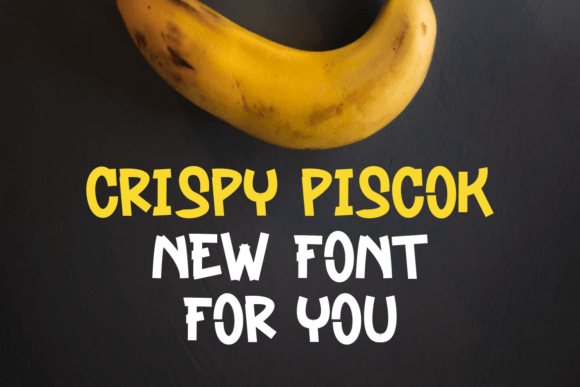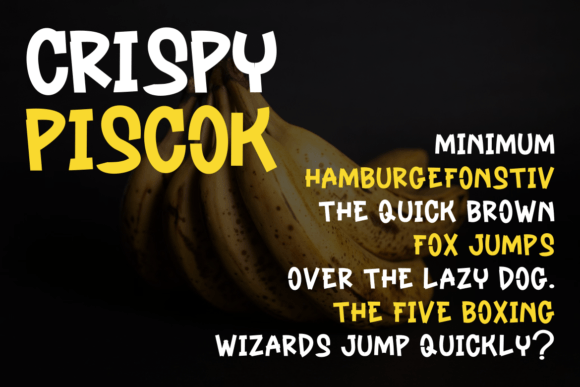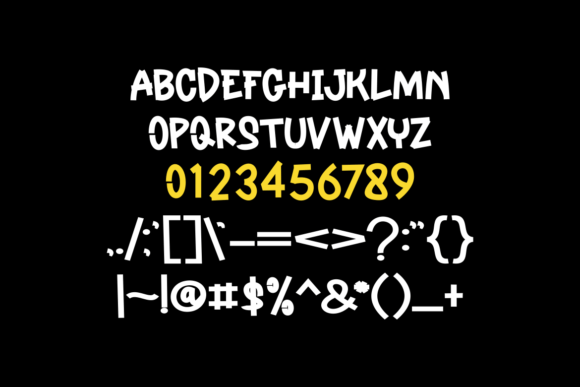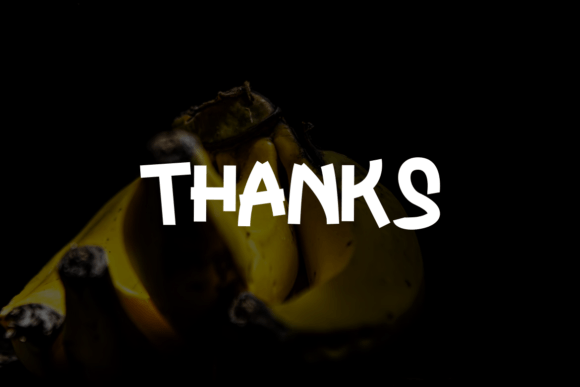
Crispy Piscok Font: Elevate Your Designs with a Modern, Bold, and Authentic Display Font
In the world of design, typography plays a crucial role in conveying messages, expressing creativity, and building brand identities. For designers and crafters seeking a font that can make their work stand out, Crispy Piscok is an exceptional choice. This modern, bold, and authentic display font is versatile, making it suitable for various applications, from branding and logos to T-shirt printing, esports, and beyond.
What Makes Crispy Piscok Font Stand Out?
Crispy Piscok is not just another font; it’s a statement piece. Its modern and bold design ensures that your work grabs attention. The authenticity of this font adds a layer of professionalism and reliability, making it perfect for projects where you want to make a lasting impression.
One of the key benefits of Crispy Piscok is its versatility. This font excels in a wide range of contexts, making it a valuable asset for any designer or crafter. Whether you’re working on:
- Branding: Create a memorable brand identity with Crispy Piscok. Its bold and authentic style ensures that your brand stands out in a crowded market.
- Logos: Design logos that are not only visually appealing but also convey the essence of your brand. Crispy Piscok’s modern look makes it perfect for logos that need to be both stylish and impactful.
- T-shirt Printing: For crafters and designers who specialize in custom apparel, Crispy Piscok offers a fresh and trendy option. It ensures that your designs are not only visually striking but also wearable and comfortable.
- Esports: The esports industry requires designs that are dynamic, youthful, and engaging. Crispy Piscok, with its bold and modern aesthetic, is an excellent choice for esports branding, team logos, and marketing materials.
Why Choose Crispy Piscok Font?
Choosing Crispy Piscok for your design projects comes with several advantages:
- Uniqueness: In a sea of generic fonts, Crispy Piscok offers a unique and distinctive look that can set your work apart.
- Readability: Despite its bold nature, Crispy Piscok maintains high readability, ensuring that your message is conveyed clearly and effectively.
- Customizability: This font can be easily customized to fit your project’s specific needs, allowing for creative freedom and flexibility.
- Professionalism: Using a high-quality font like Crispy Piscok adds a professional touch to your designs, enhancing your credibility and the perceived value of your work.
Tips for Using Crispy Piscok Font Effectively
To maximize the impact of Crispy Piscok, consider the following tips:
- Pair it Wisely: When combining Crispy Piscok with other fonts, choose fonts that complement its bold and modern style. A good rule of thumb is to pair it with a simpler font for body text to maintain readability.
- Play with Sizes: Experiment with different font sizes to create visual hierarchy and emphasis in your designs.
- Utilize Colors: Don’t be afraid to play with colors. Crispy Piscok can be used in various colors to match or contrast with your brand’s palette, adding depth and interest to your designs.
Crispy Piscok font is a game-changer for designers and crafters looking to elevate their work with a modern, bold, and authentic display font. Its versatility, readability, and unique style make it an excellent choice for a wide range of projects, from branding and logos to T-shirt printing and esports. By incorporating Crispy Piscok into your design toolkit, you’re not just choosing a font; you’re choosing a way to make your work extraordinary.